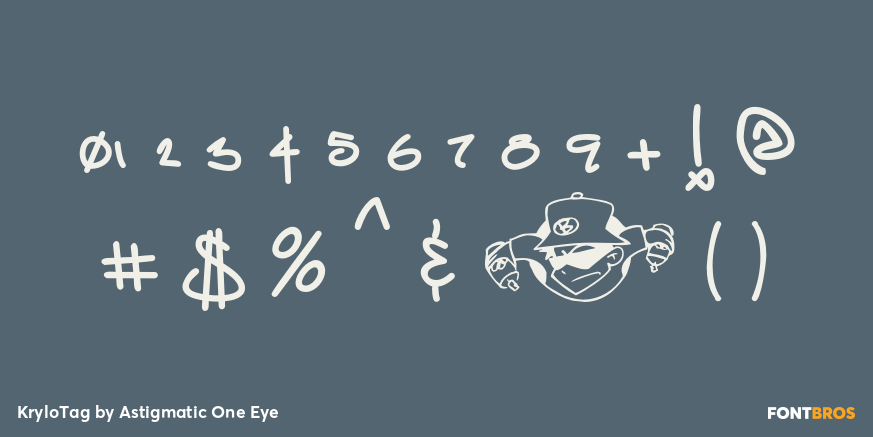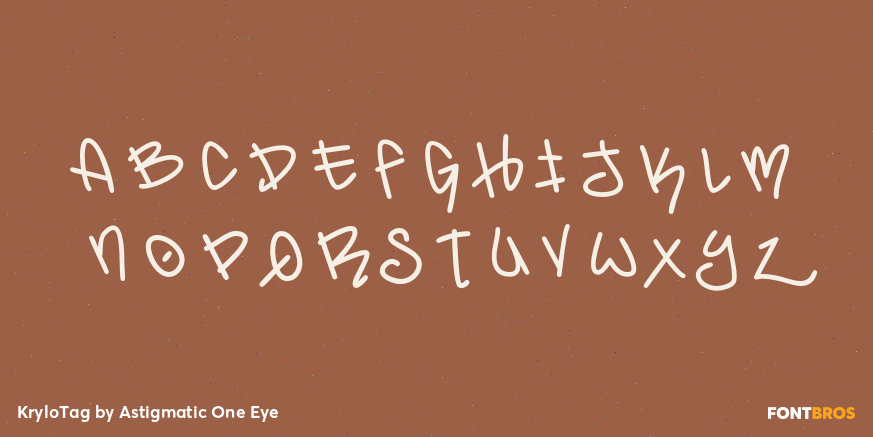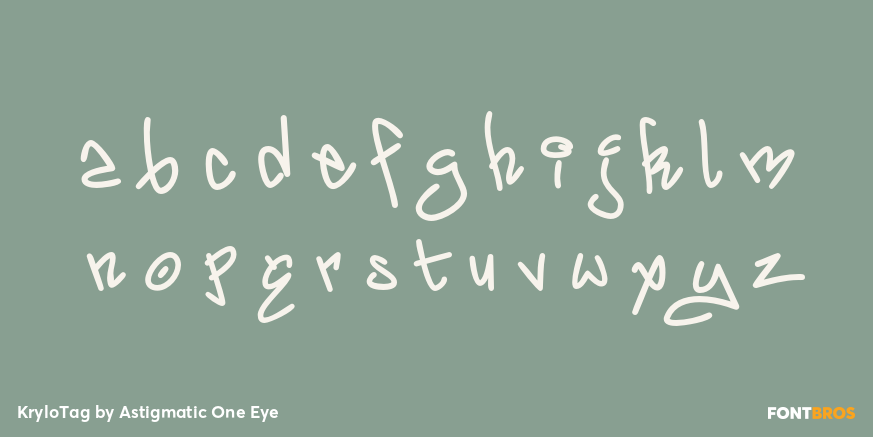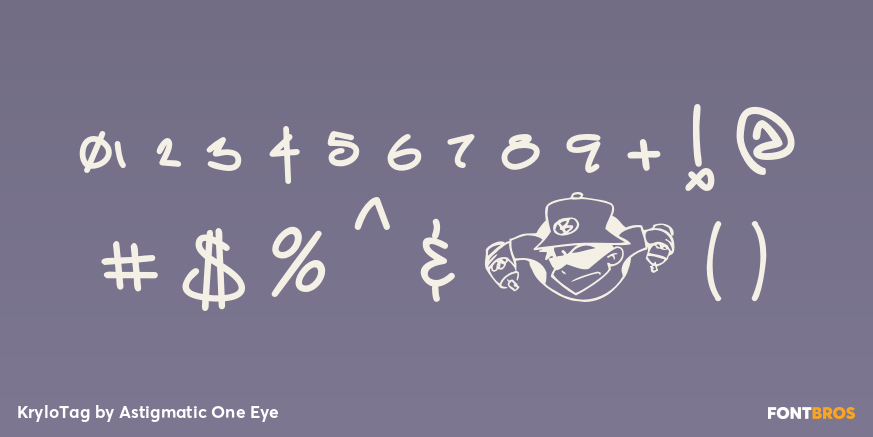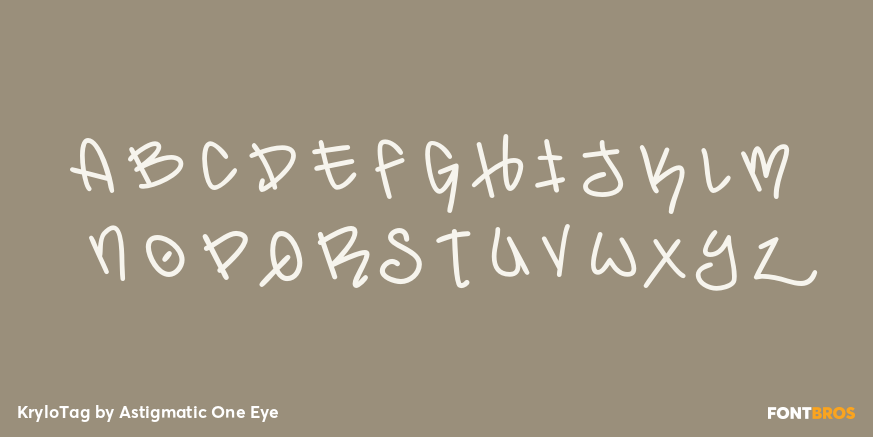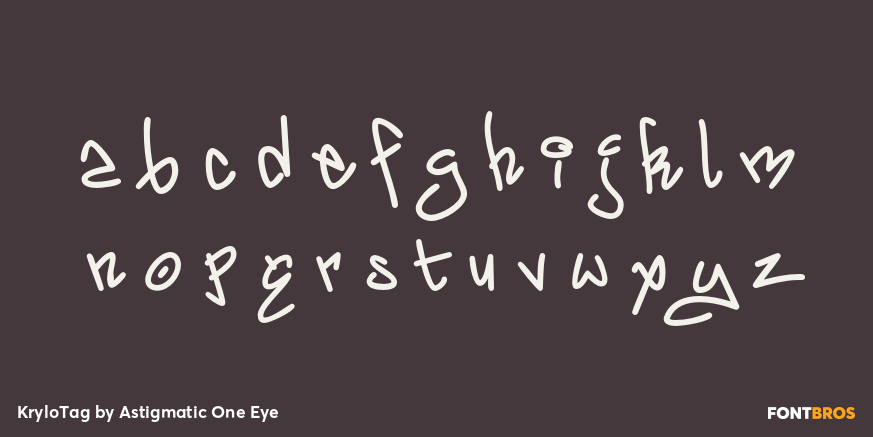
KryloTag
Font Family by Astigmatic One Eye
KryloTag is a lively graffiti-inspired display family with a hand-drawn, urban feel. Its bold, decorative letterforms give off an energetic, expressive impression that feels casual, playful, and unmistakably streetwise.
With three included styles—Regular, Outline, and Back—it gives you a flexible set of looks for layered typography, attention-grabbing headlines, and graphic treatments with extra depth. The mix of solid and outlined forms makes it especially appealing for poster work, youth-focused branding, apparel graphics, and other display pieces that need a dynamic, artistic voice.
Created by Astigmatic One Eye, this family suits designers looking for a modern graffiti look that feels informal, quirky, and full of movement.